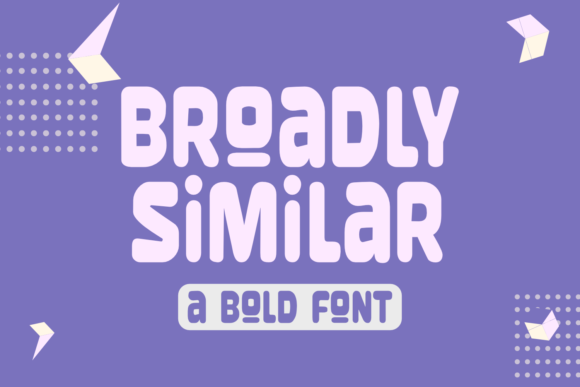
The Quest for the Perfect Font: Discovering Broadly Similar
Ah, the eternal struggle of finding the perfect font for your design project. I recall a particularly frustrating moment when I was working on a branding project for a trendy coffee shop. My client wanted a font that was “fun, yet sophisticated,” and I was determined to deliver. After hours of scouring font libraries and testing out different options, I stumbled upon Broadly Similar – a cool and retro-styled display font that instantly brought my design to life.
A Personal Review of Broadly Similar
So, what makes Broadly Similar so special? Let’s dive into the good stuff! 😊
• ✨ Unique retro vibe that’s perfect for adding a touch of personality to your designs
• 🎉 Wide range of uses, from headings and titles to social media graphics and posters
• 👍 Simple, yet effective design that’s easy to pair with other fonts
While Broadly Similar is an amazing font, it’s not without its quirks. 🤔 Here are a few things to keep in mind:
• ⚠️ Limited availability of stylistic alternates, which may limit its use in certain design contexts
• 😐 Not ideal for body text or long-form content, as it’s primarily designed for display purposes
The Designer Inspiration Behind Broadly Similar
Broadly Similar was inspired by the retro typography of the 1970s and 1980s, with a dash of modern playfulness. The designer aimed to create a font that was both nostalgic and fresh, with a unique personality that would stand out in any design.
What type of font is Broadly Similar? Broadly Similar is a display font with a retro-styled, sans-serif design.
Is Broadly Similar suitable for body text? No, Broadly Similar is primarily designed for display purposes and may not be ideal for body text or long-form content.
Are there any OpenType features available in Broadly Similar? Yes, Broadly Similar offers a range of OpenType features, including glyphs and stylistic alternates.
In conclusion, Broadly Similar is an amazing font that’s sure to add a touch of personality to your designs. With its unique retro vibe, high legibility, and wide range of uses, it’s an excellent addition to any design library. So go ahead, give Broadly Similar a try, and see how it can bring your designs to life! 🎉